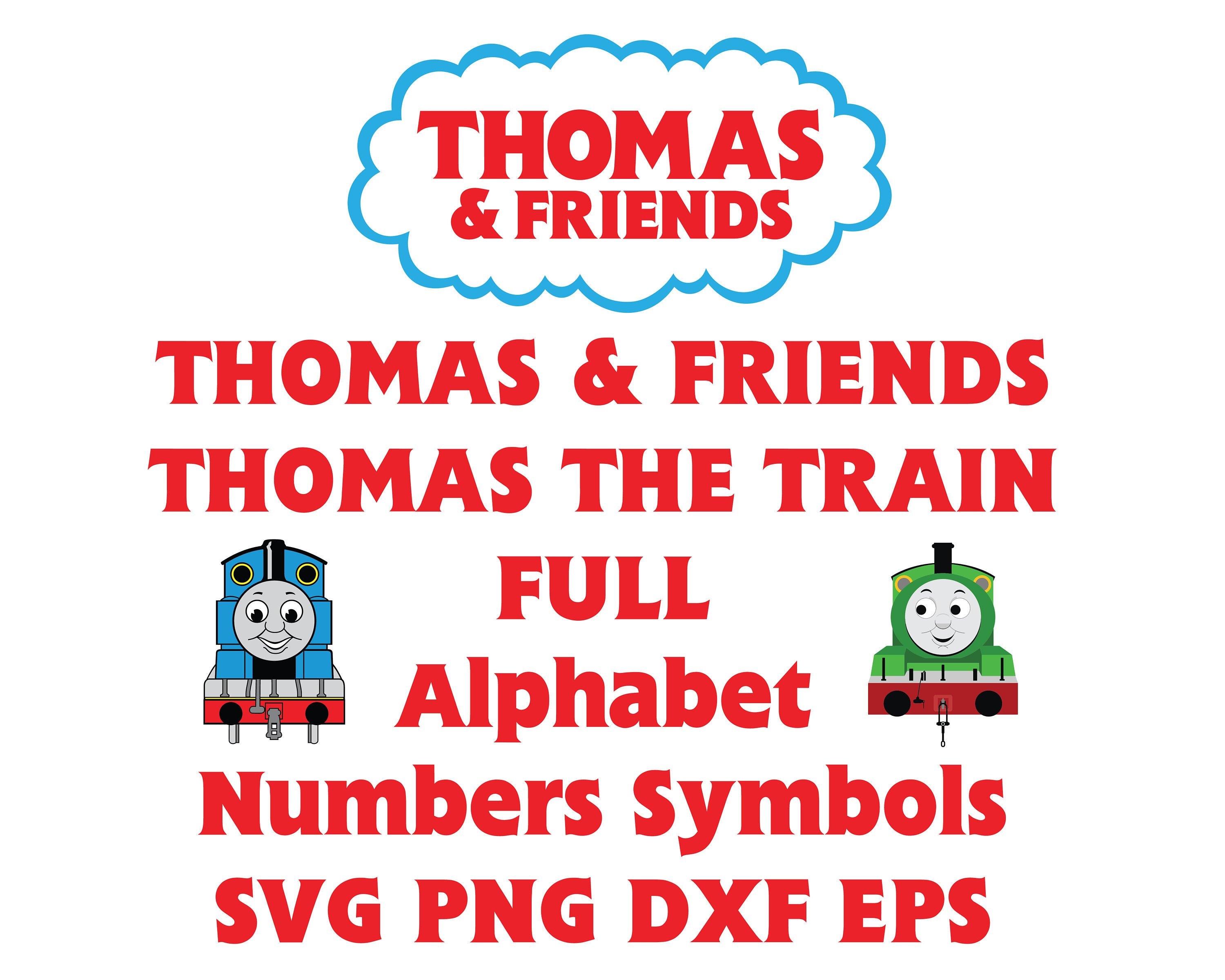
Thomas The Tank Engine Font
Thomas The Tank Engine Font - As an animated television series for children, thomas and friends first debuted on itv network in. The time is now 06:53. What is the font for thomas the tank engine & friends? Thomas & friends is a beloved. Can anyone identify this one? Flange bq bold by leslie usherwood is a font based on the title logo from the tv show thomas & friends. What was the font for thomas the tank engine from 1984 all the way to 2003?
Can anyone identify this one? Thomas & friends is a beloved. What is the font for thomas the tank engine & friends? As an animated television series for children, thomas and friends first debuted on itv network in. What was the font for thomas the tank engine from 1984 all the way to 2003? Flange bq bold by leslie usherwood is a font based on the title logo from the tv show thomas & friends. The time is now 06:53.
As an animated television series for children, thomas and friends first debuted on itv network in. Thomas & friends is a beloved. Can anyone identify this one? Flange bq bold by leslie usherwood is a font based on the title logo from the tv show thomas & friends. What was the font for thomas the tank engine from 1984 all the way to 2003? What is the font for thomas the tank engine & friends? The time is now 06:53.
Thomas The Tank Engine Font Generator
Thomas & friends is a beloved. What was the font for thomas the tank engine from 1984 all the way to 2003? The time is now 06:53. As an animated television series for children, thomas and friends first debuted on itv network in. Can anyone identify this one?
Thomas The Tank Engine Font Generator
The time is now 06:53. Can anyone identify this one? Flange bq bold by leslie usherwood is a font based on the title logo from the tv show thomas & friends. As an animated television series for children, thomas and friends first debuted on itv network in. What is the font for thomas the tank engine & friends?
The Ultimate Thomas Font Collection (Original by ArtBoy54) (I to
Flange bq bold by leslie usherwood is a font based on the title logo from the tv show thomas & friends. As an animated television series for children, thomas and friends first debuted on itv network in. What was the font for thomas the tank engine from 1984 all the way to 2003? The time is now 06:53. Thomas &.
What is the font for thomas the tank engine & friends? As an animated television series for children, thomas and friends first debuted on itv network in. What was the font for thomas the tank engine from 1984 all the way to 2003? Thomas & friends is a beloved. Can anyone identify this one?
Thomas & friends is a beloved. As an animated television series for children, thomas and friends first debuted on itv network in. Can anyone identify this one? The time is now 06:53. Flange bq bold by leslie usherwood is a font based on the title logo from the tv show thomas & friends.
As an animated television series for children, thomas and friends first debuted on itv network in. What is the font for thomas the tank engine & friends? Flange bq bold by leslie usherwood is a font based on the title logo from the tv show thomas & friends. Can anyone identify this one? What was the font for thomas the.
The time is now 06:53. Thomas & friends is a beloved. What is the font for thomas the tank engine & friends? What was the font for thomas the tank engine from 1984 all the way to 2003? Flange bq bold by leslie usherwood is a font based on the title logo from the tv show thomas & friends.
Pin on PROJECT THOMAS THE TRAIN BIRTHDAY
Can anyone identify this one? Thomas & friends is a beloved. As an animated television series for children, thomas and friends first debuted on itv network in. What is the font for thomas the tank engine & friends? Flange bq bold by leslie usherwood is a font based on the title logo from the tv show thomas & friends.
Thomas and Friends Font FreeDaFonts
As an animated television series for children, thomas and friends first debuted on itv network in. Flange bq bold by leslie usherwood is a font based on the title logo from the tv show thomas & friends. The time is now 06:53. What was the font for thomas the tank engine from 1984 all the way to 2003? What is.
Thomas & Friends Is A Beloved.
Can anyone identify this one? The time is now 06:53. As an animated television series for children, thomas and friends first debuted on itv network in. What was the font for thomas the tank engine from 1984 all the way to 2003?
What Is The Font For Thomas The Tank Engine & Friends?
Flange bq bold by leslie usherwood is a font based on the title logo from the tv show thomas & friends.